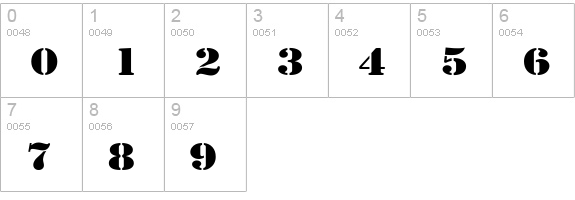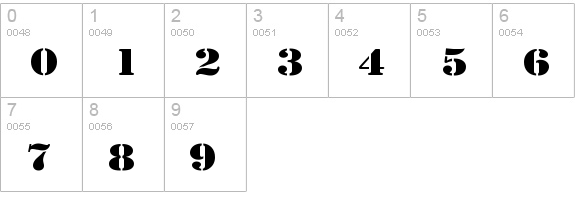
Army Wide is a distinctive, extended-width variant in the Army typeface family \xE2\x80\x94 well suited to design and typography projects.
Army Wide font is a bold and commanding typeface that exudes strength and power. Its wide letterforms and sharp angles give it a rugged and militaristic appearance, making it the perfect choice for projects that require a strong and impactful look. Whether you are designing posters, logos, or headlines, Army Wide font will make a bold statement. What's even better is that Army Wide font is available for free at FontsMarket.com. You can easily download this powerful font and use it in your projects without any cost. Don't miss out on the opportunity to add this impressive typeface to your font collection. Download Army Wide font now and take your designs to the next level.